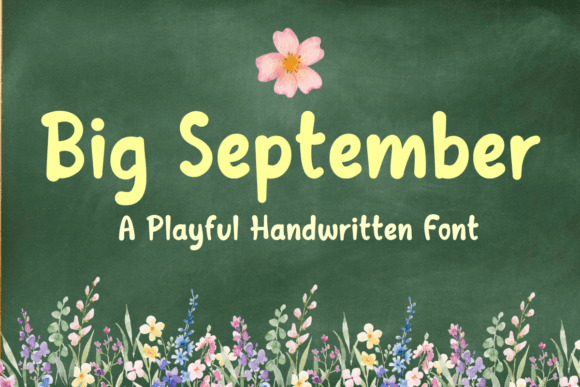
Discover the Joy of Big September Font: A Playful Companion for Your Designs
I’ll never forget the time I was working on a back-to-school project for a client, and I just couldn’t find the right font to capture the excitement and energy of a new school year. The designs felt flat, and I knew I needed something that would bring a smile to the kids’ faces. That’s when I stumbled upon Big September Font, and it instantly became the perfect fit. In this article, I’ll share my experience with this wonderful font, its features, and how you can make the most of it in your designs.
A First Impression: What Makes Big September Font Special
Big September is a cheerful and playful handwritten-style font that brings a sense of warmth and friendliness to any design. With its rounded characters and smooth, chunky lines, this font is perfect for back-to-school themes, classroom posters, children’s books, educational worksheets, and fun event flyers.
The font includes uppercase and lowercase letters, full punctuation, numerals, and multilingual support — making it both fun and functional. Designed to mimic the energy of a new school year, Big September works beautifully in digital and print projects where readability and personality go hand-in-hand.
- ✨ Playful and cheerful vibe: Big September instantly adds a fun touch to any design, making it perfect for projects aimed at kids or a family audience.
- ✅ High readability: The chunky lines and rounded characters ensure that the text is easy to read, even at smaller sizes.
- ✅ Multilingual support: This font supports multiple languages, making it a versatile choice for global projects.
- ✅ Complete character set: It includes uppercase and lowercase letters, numerals, and full punctuation, covering all your basic needs.
- ⚠️ Limited use in formal projects: Due to its playful nature, Big September might not be the best fit for formal or professional designs.
- 🤔 Can be too bold for certain themes: The chunky lines might overpower more delicate design elements or themes.
The Story Behind Big September: Designer Inspiration
Big September was designed with the intention of capturing the excitement and anticipation of a new school year. The designer aimed to create a font that felt both approachable and engaging, perfect for materials that would be used in educational settings or family-oriented projects. The result is a font that feels both modern and timeless, with a playful energy that’s hard to resist.